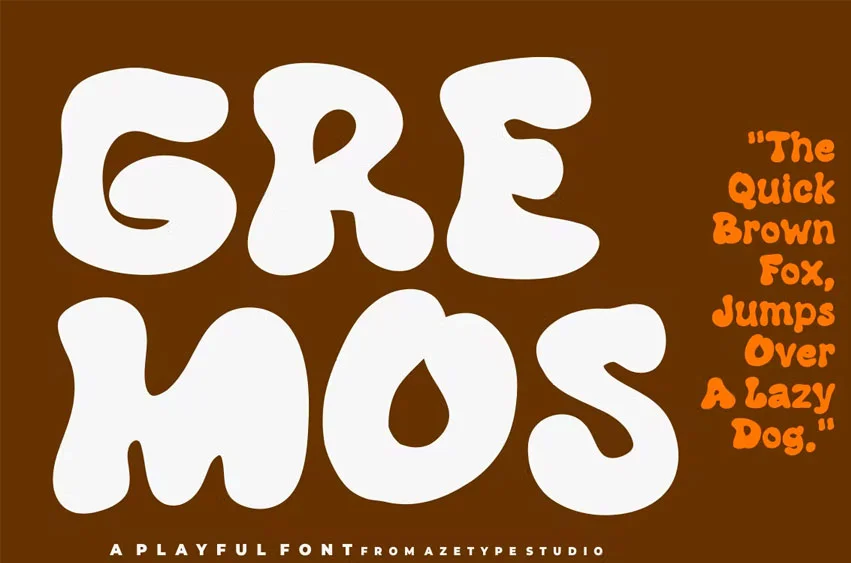
Gremos Font
Gremos Font is a playful font suitable for your design project needs, such as; social media posts, quotes, overlays on images, tagline logos, posters, print needs, website banners, and more.